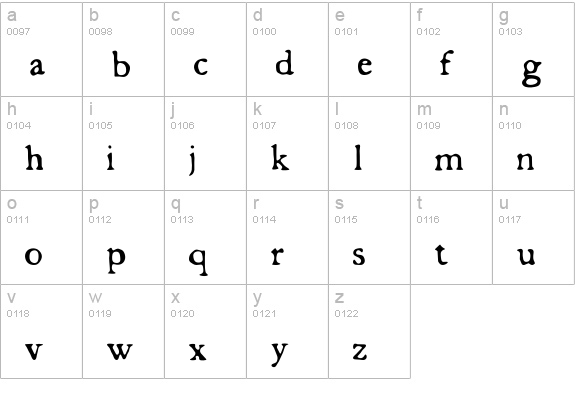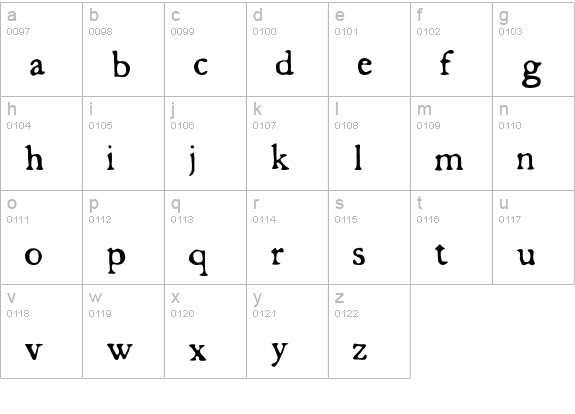
butterbrotpapier Font Details
Introducing the exquisite Butterbrotpapier font, a delightful typeface that exudes elegance and sophistication. This versatile font is perfect for adding a touch of charm and uniqueness to your projects, whether it be for branding, invitations, or editorial design. Butterbrotpapier font features a harmonious blend of classic and modern elements, with its beautifully crafted letterforms and unique flourishes. Its graceful appeal will surely captivate your audience and elevate your designs to a whole new level. Best of all, Butterbrotpapier font is completely free to download at FontsMarket.com. So go ahead and add this stunning font to your collection today, and let your creativity soar with its endless possibilities.